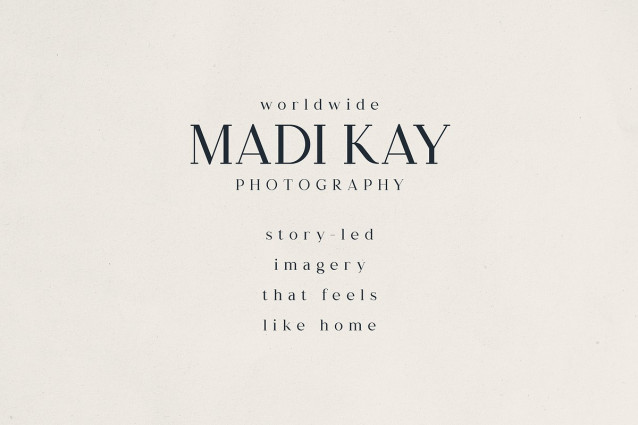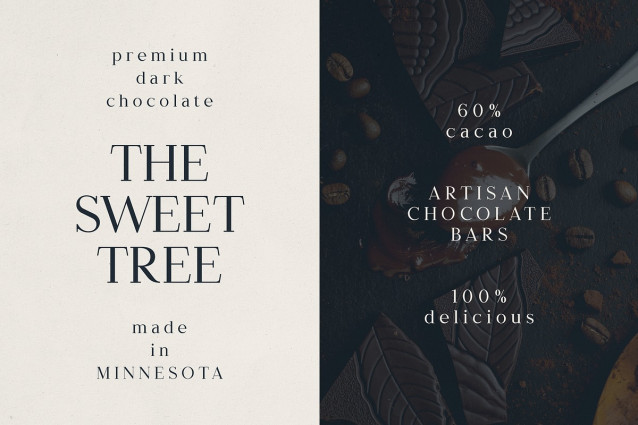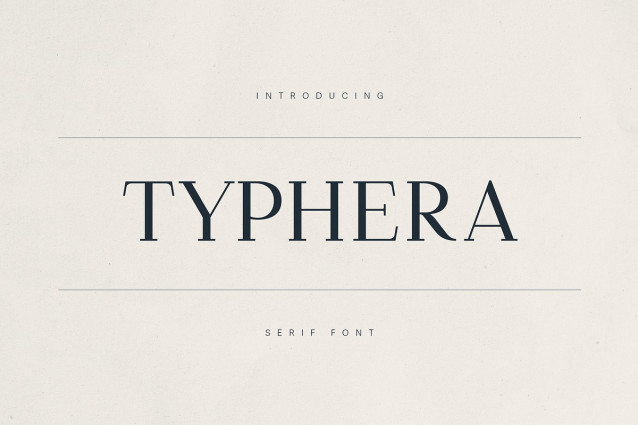
Typhera Font
Typhera Font, a refined serif typeface designed to bring elegance, clarity, and sophistication to your creative projects. With its classic proportions, subtle contrast, and sharp serifs, Typhera is perfect for premium branding, editorial layouts, packaging, and high-end digital or print design.
This versatile serif font supports extensive multilingual characters, making it ideal for global use. Whether you’re designing artisan chocolate packaging, editorial covers, photography brand identities, or luxury product labels, Typhera elevates your message with timeless charm.